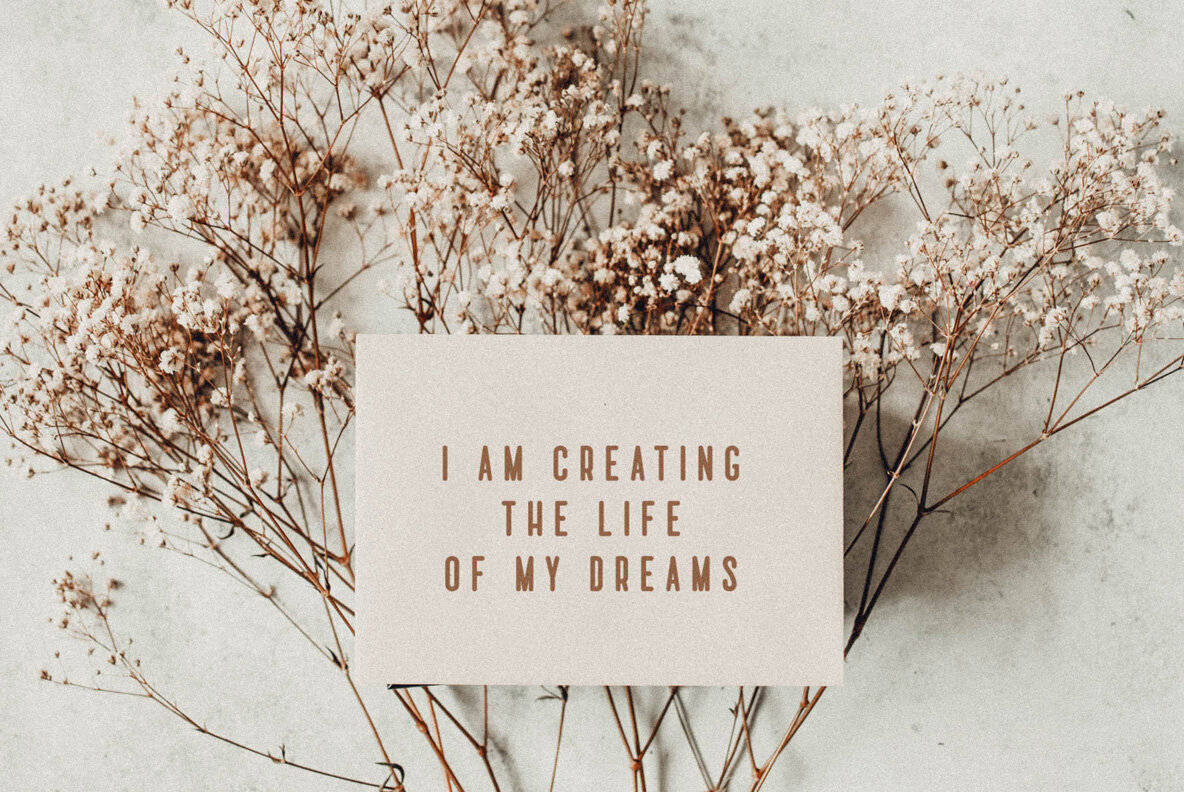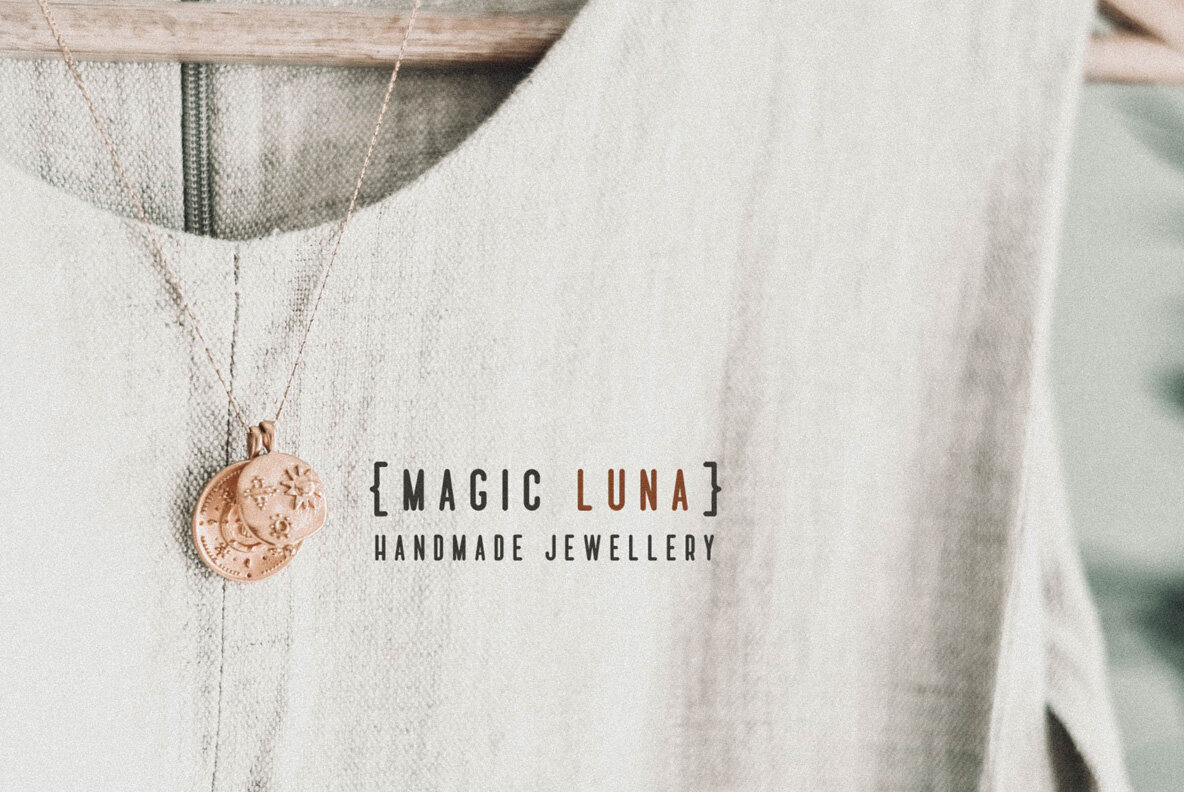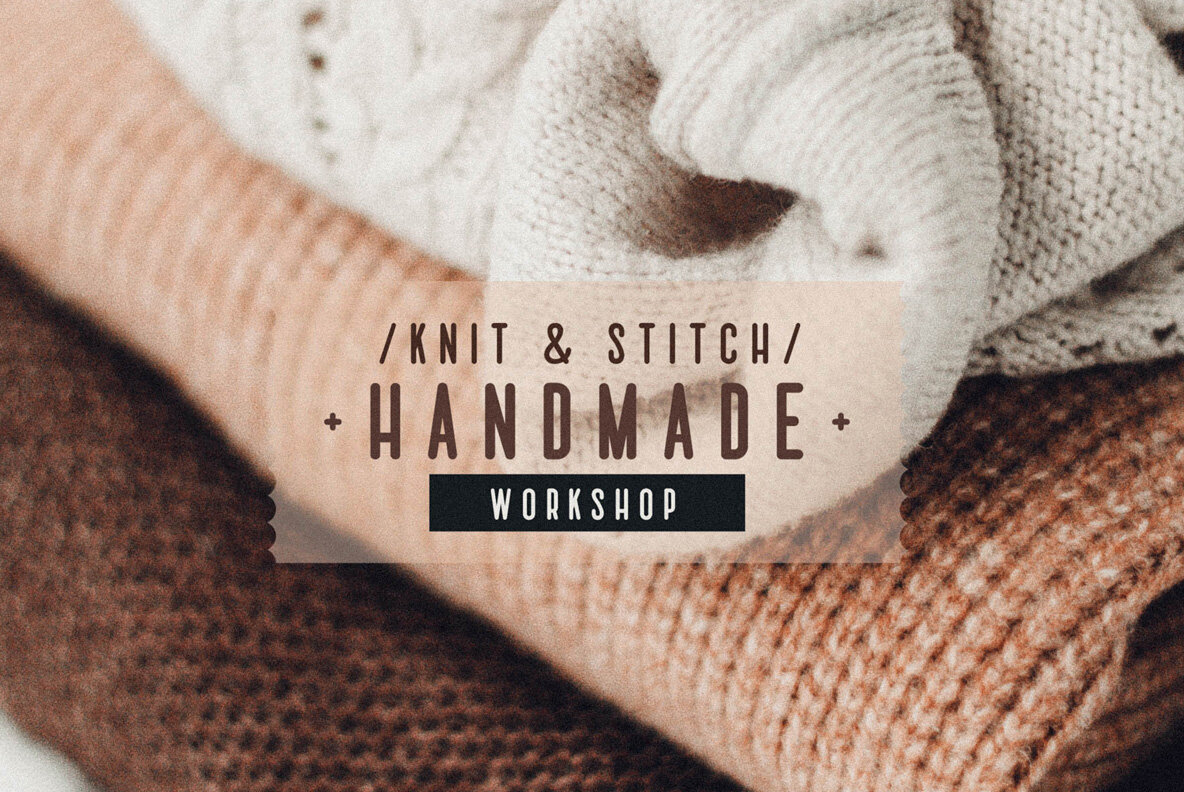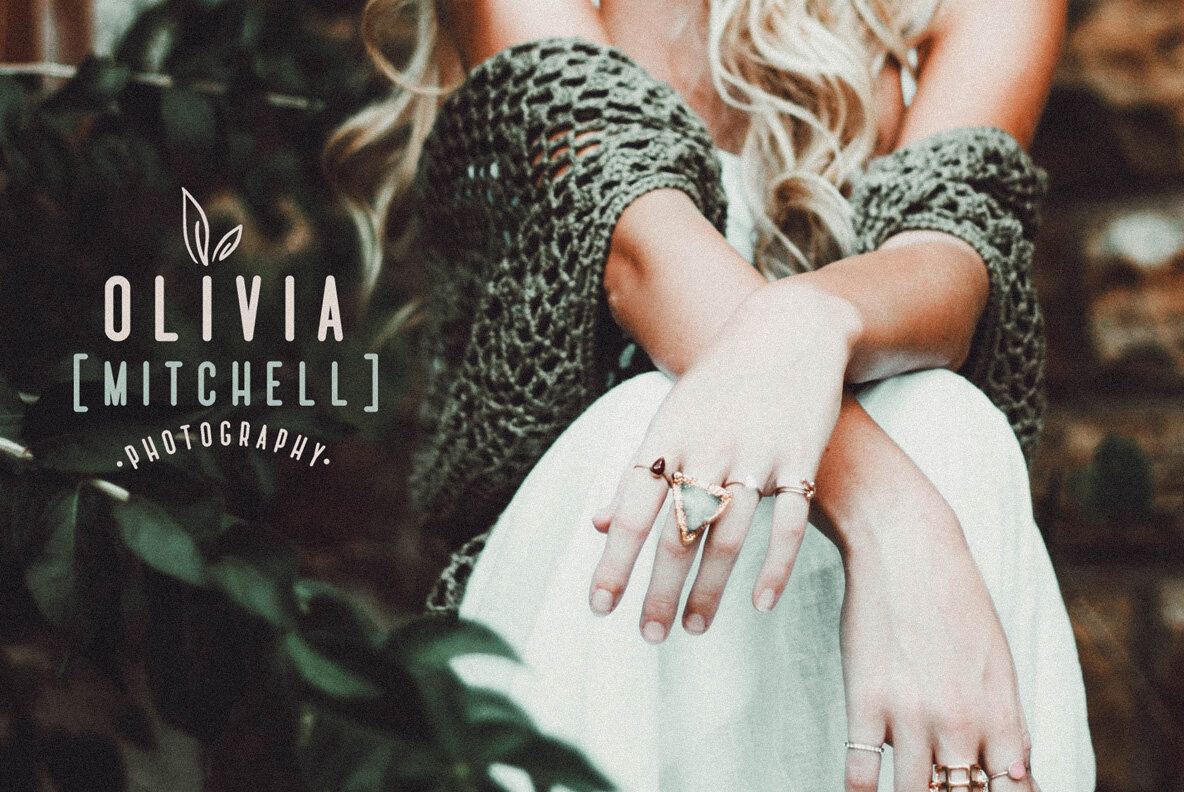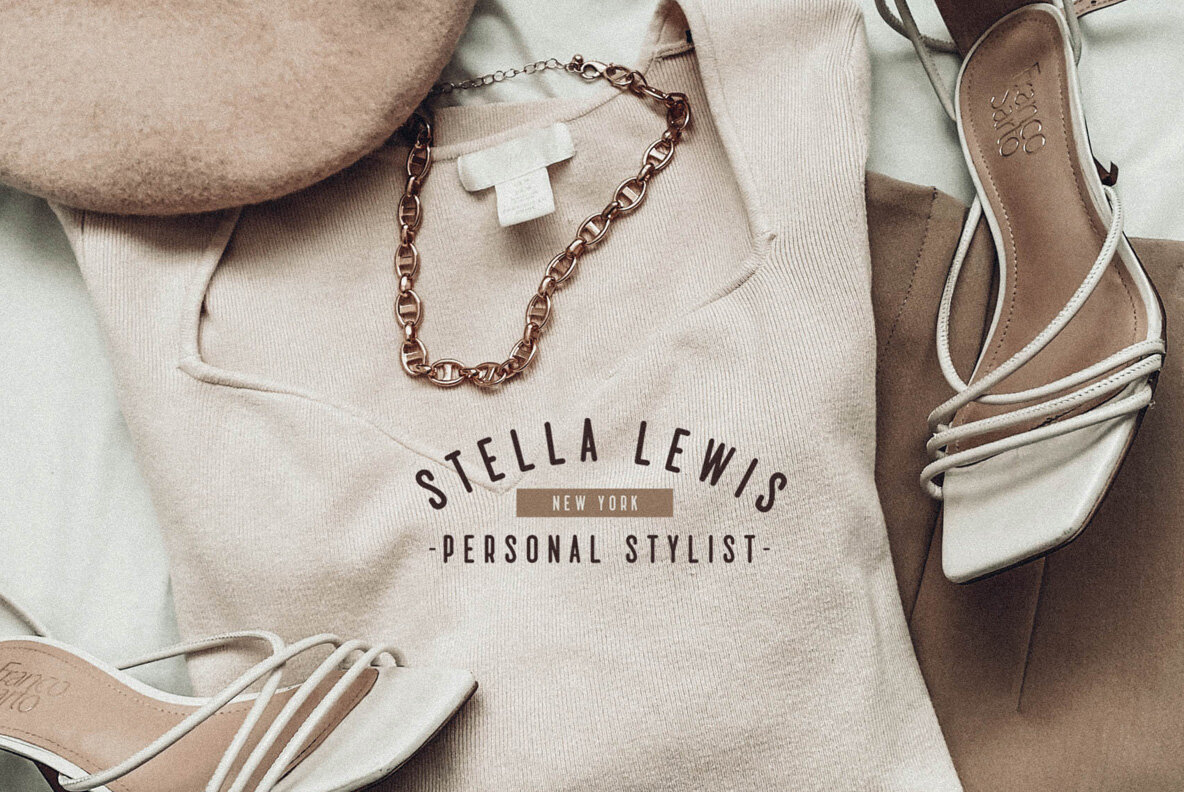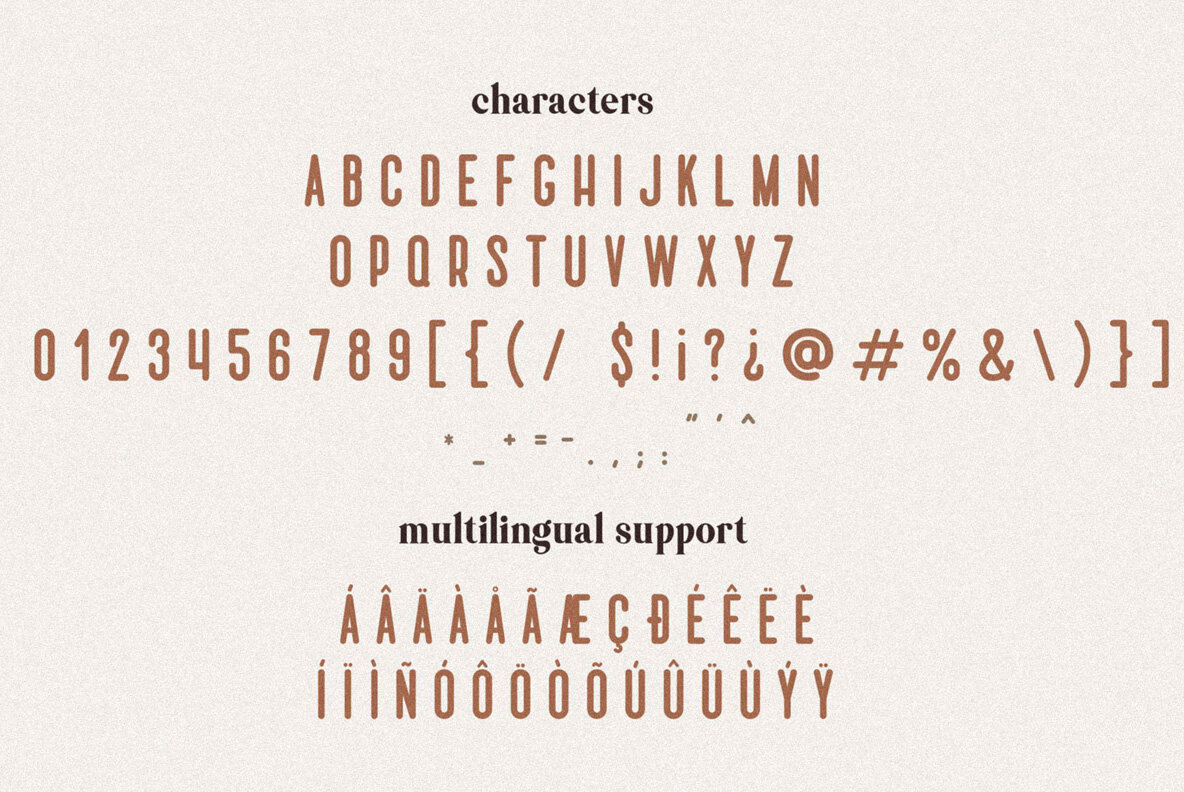
Bloomy Font
Bloomy Regular
Bloomy is a font that will make your designs stand out from the rest. It has a soft and handwritten-like style, perfect for more gentle design projects.